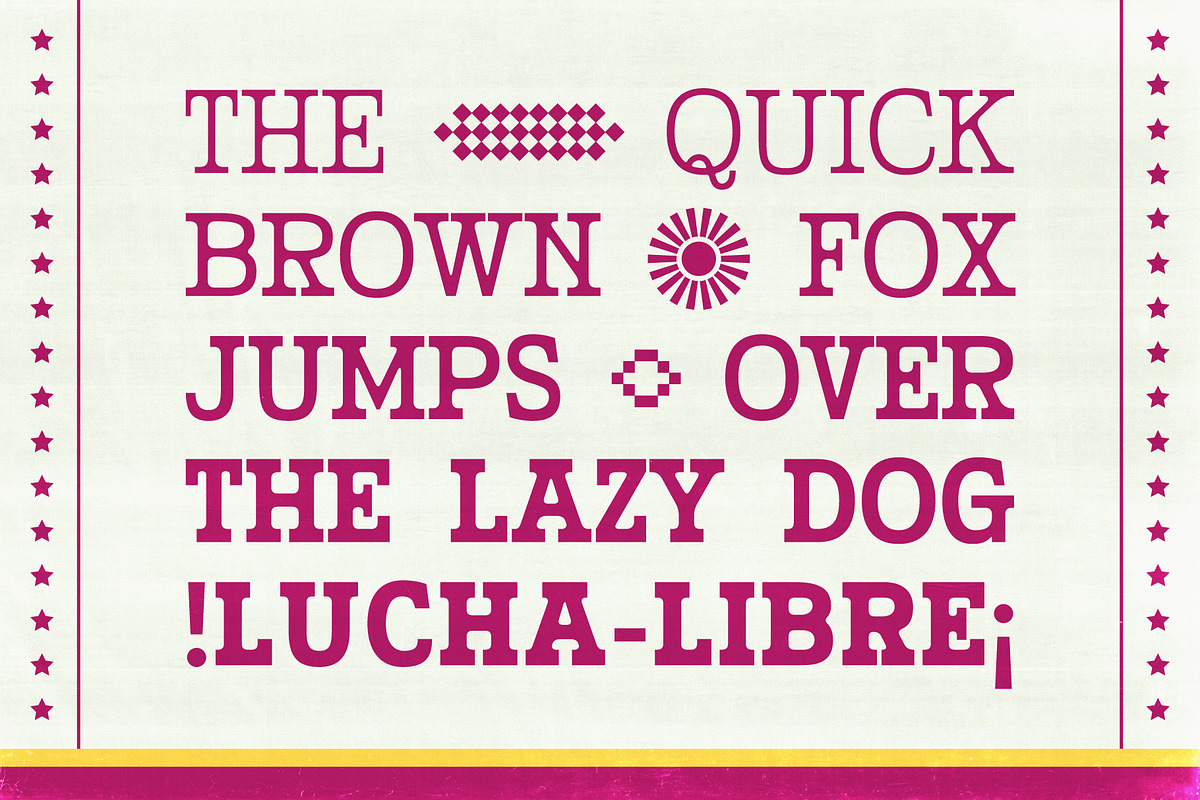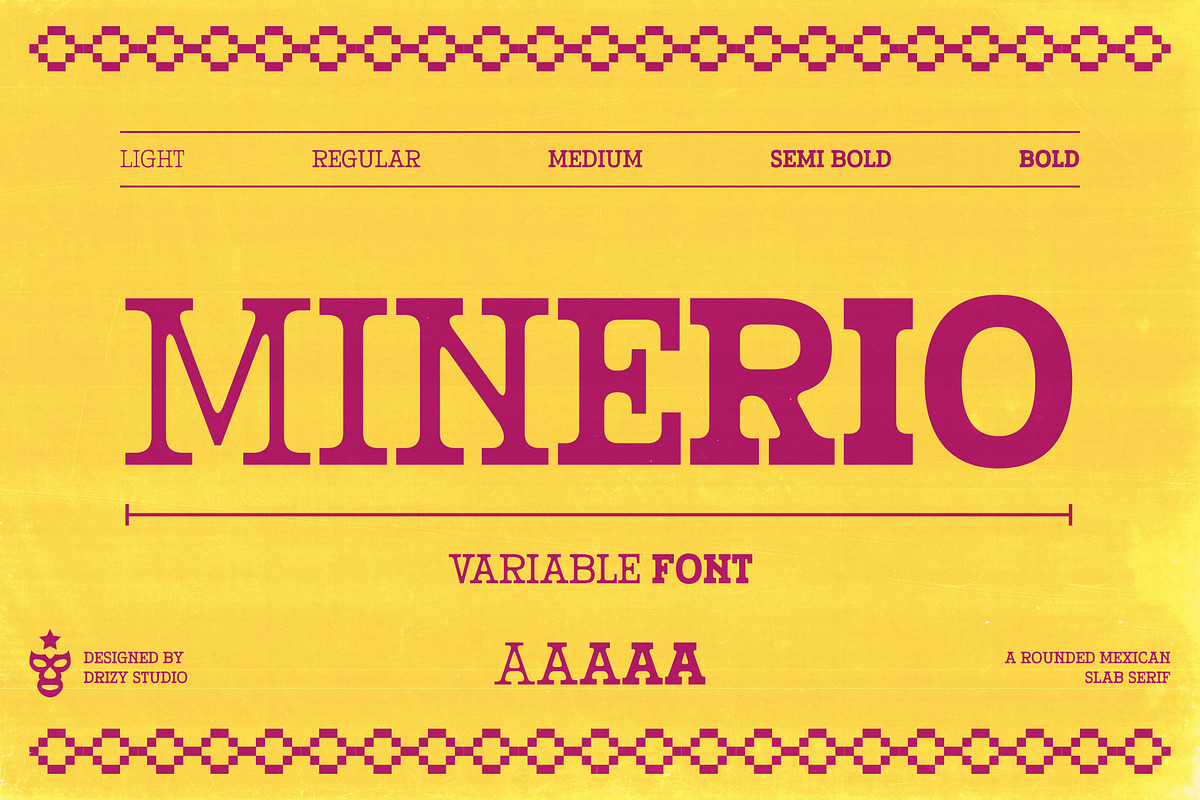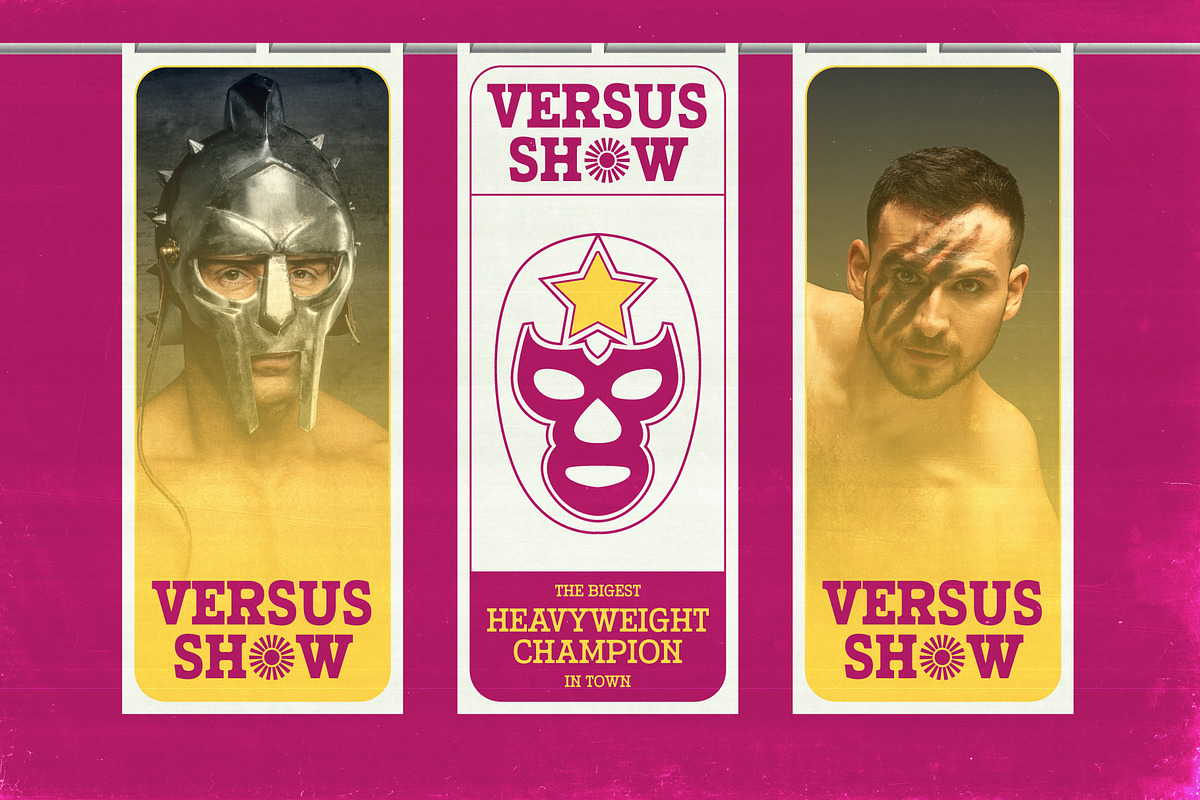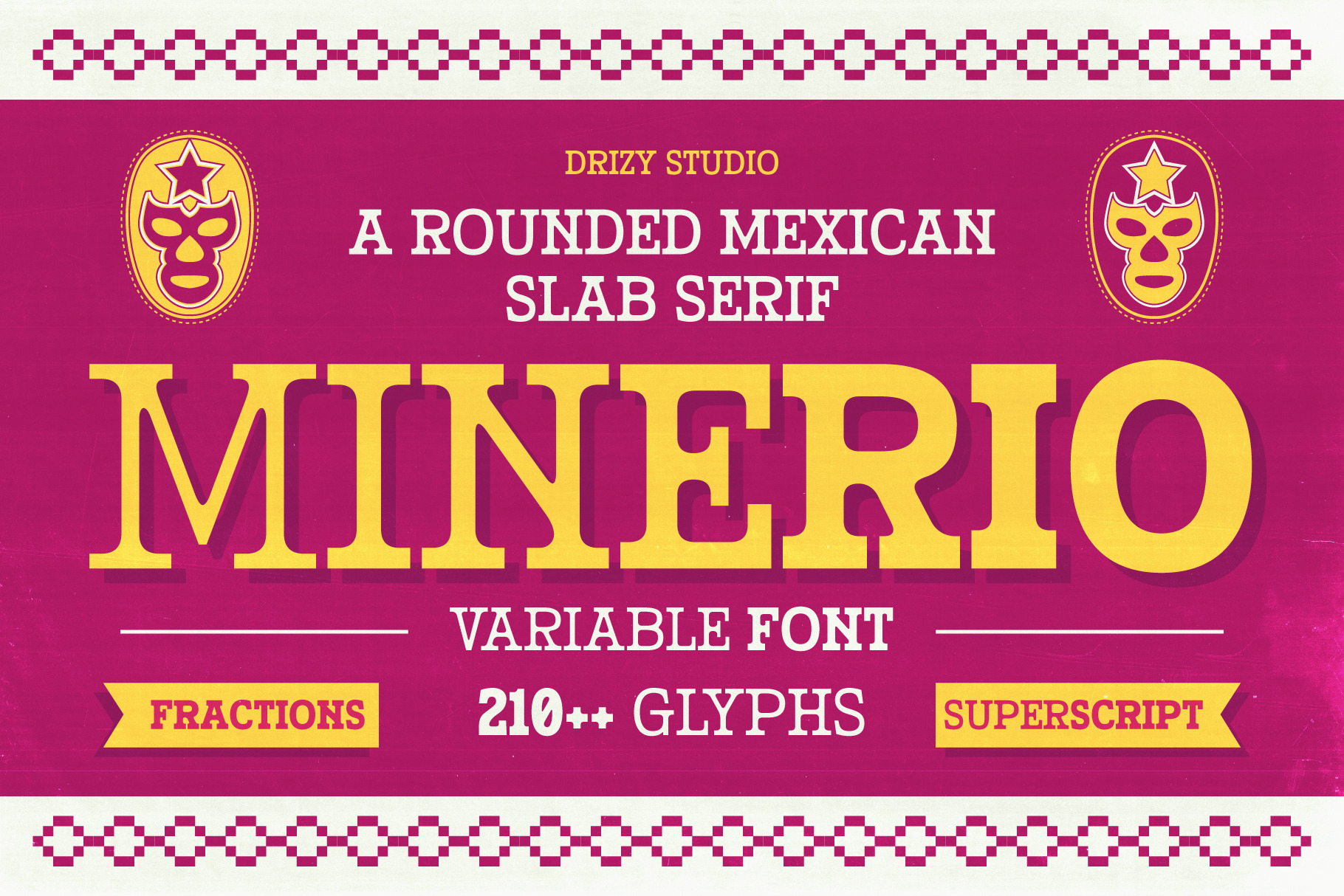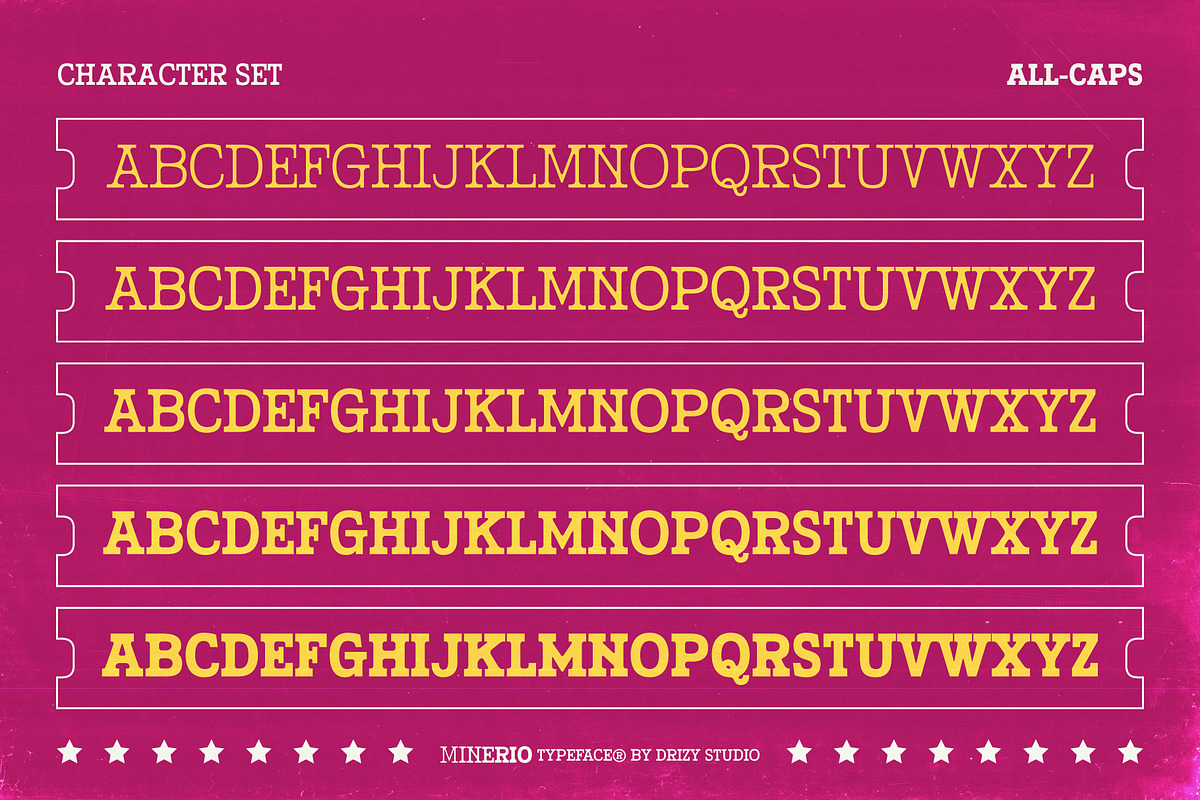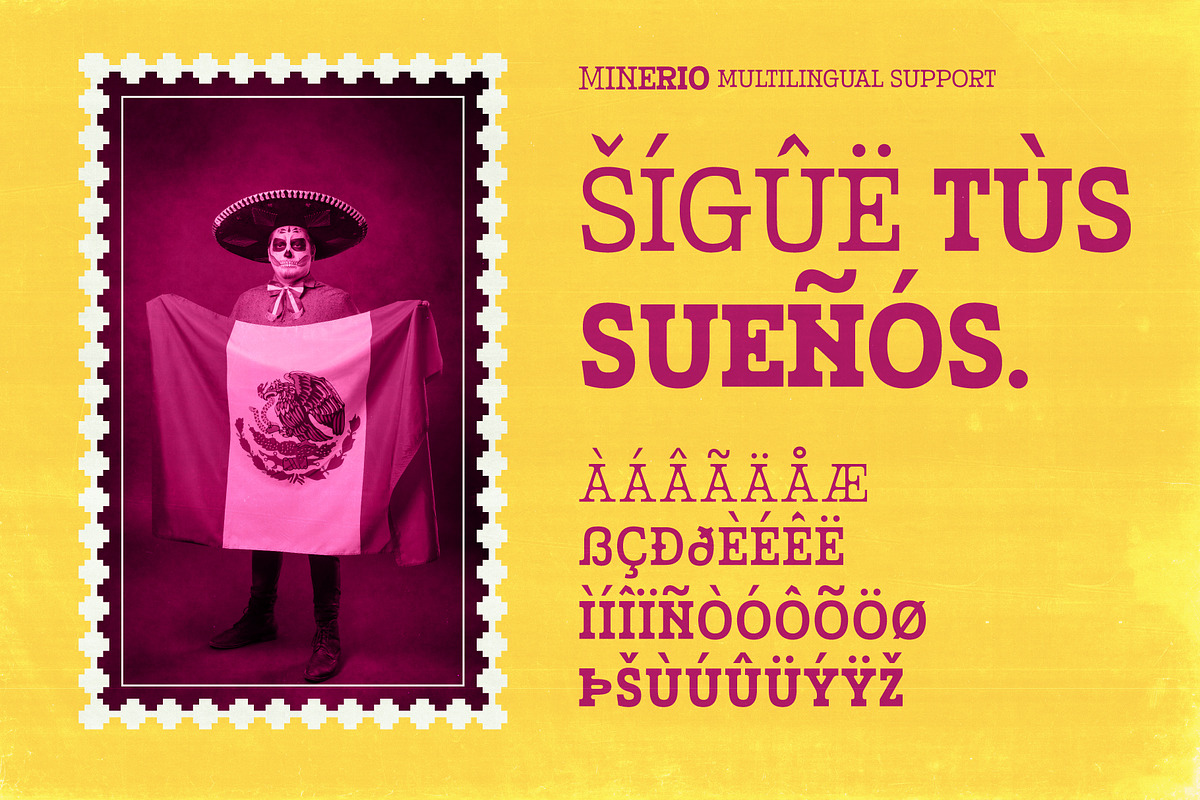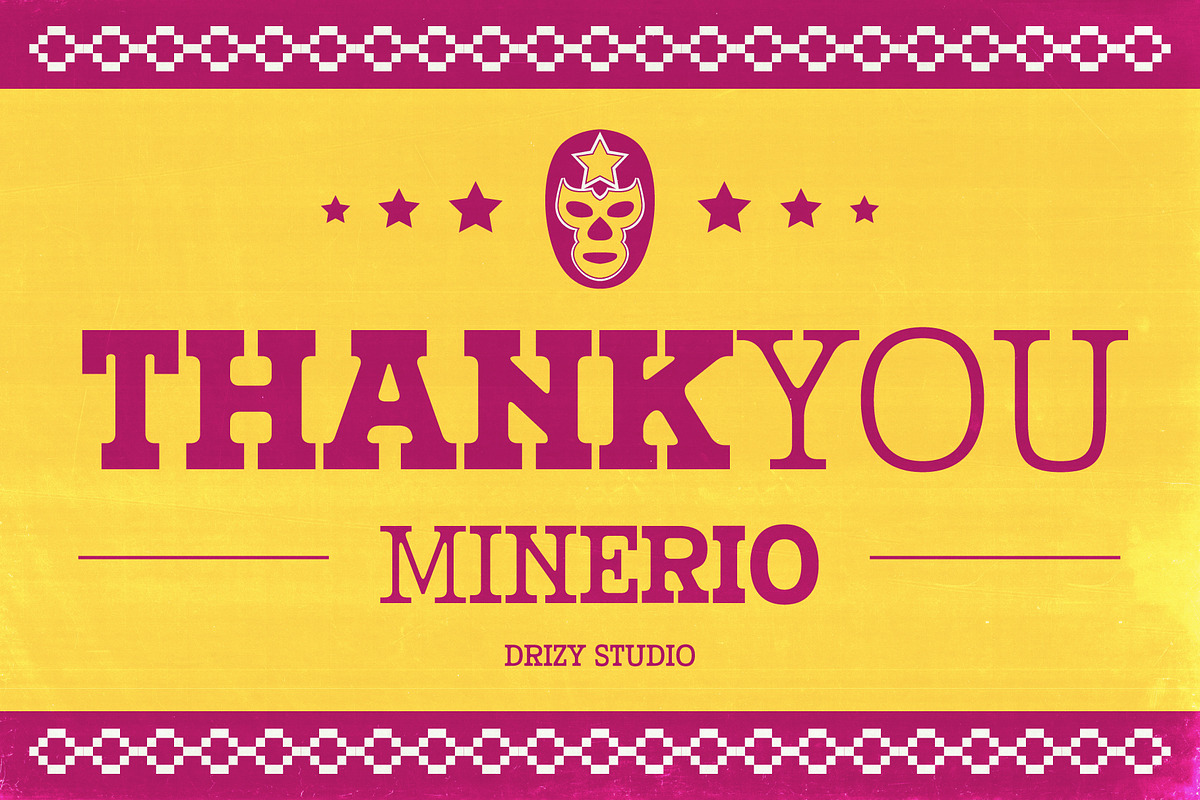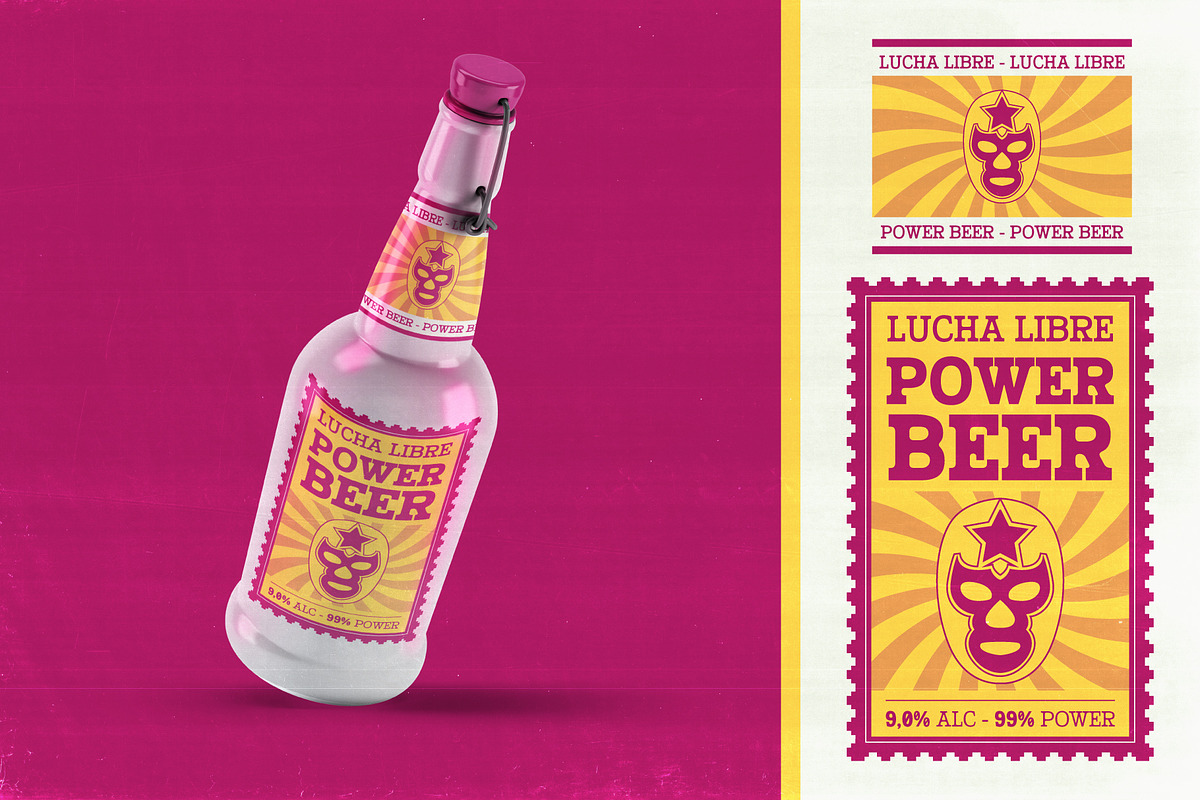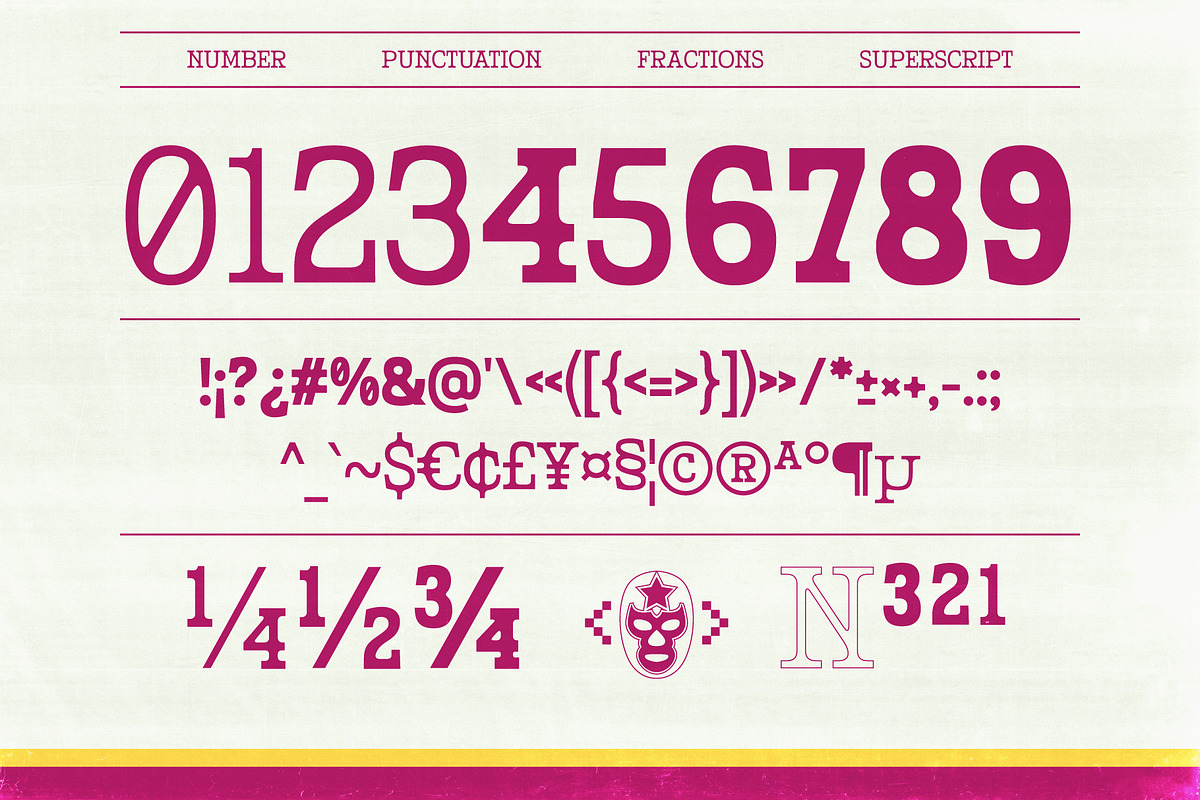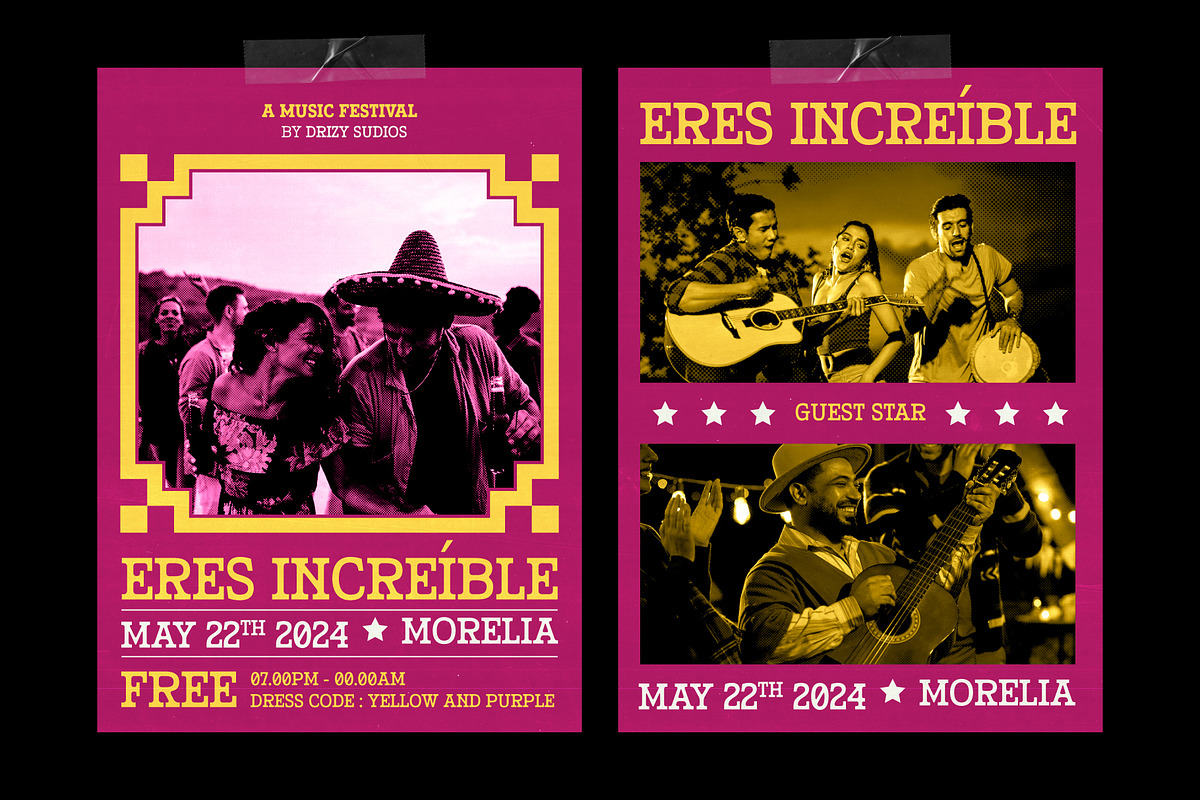
Minerio – Rounded Mexican Slab Font
Minerio is a unique typeface that captures the essence of Vintage Mexican Design with a modern twist. This rounded slab font combines the boldness of traditional slab serifs with smooth, rounded edges, creating a warm and inviting look. The Minerio font stands out with its distinctive character, making it ideal for projects that seek to evoke a sense of nostalgia and cultural richness. Its design is inspired by the vibrant, handcrafted signs and posters often seen in Mexican markets and festivals, blending heritage and contemporary aesthetics seamlessly.
Minerio features:
- Character Set (All Caps)
- Punctuation & Numbers
- Variable: Light, Regular, Medium, Semi Bold, Bold
- Family Font